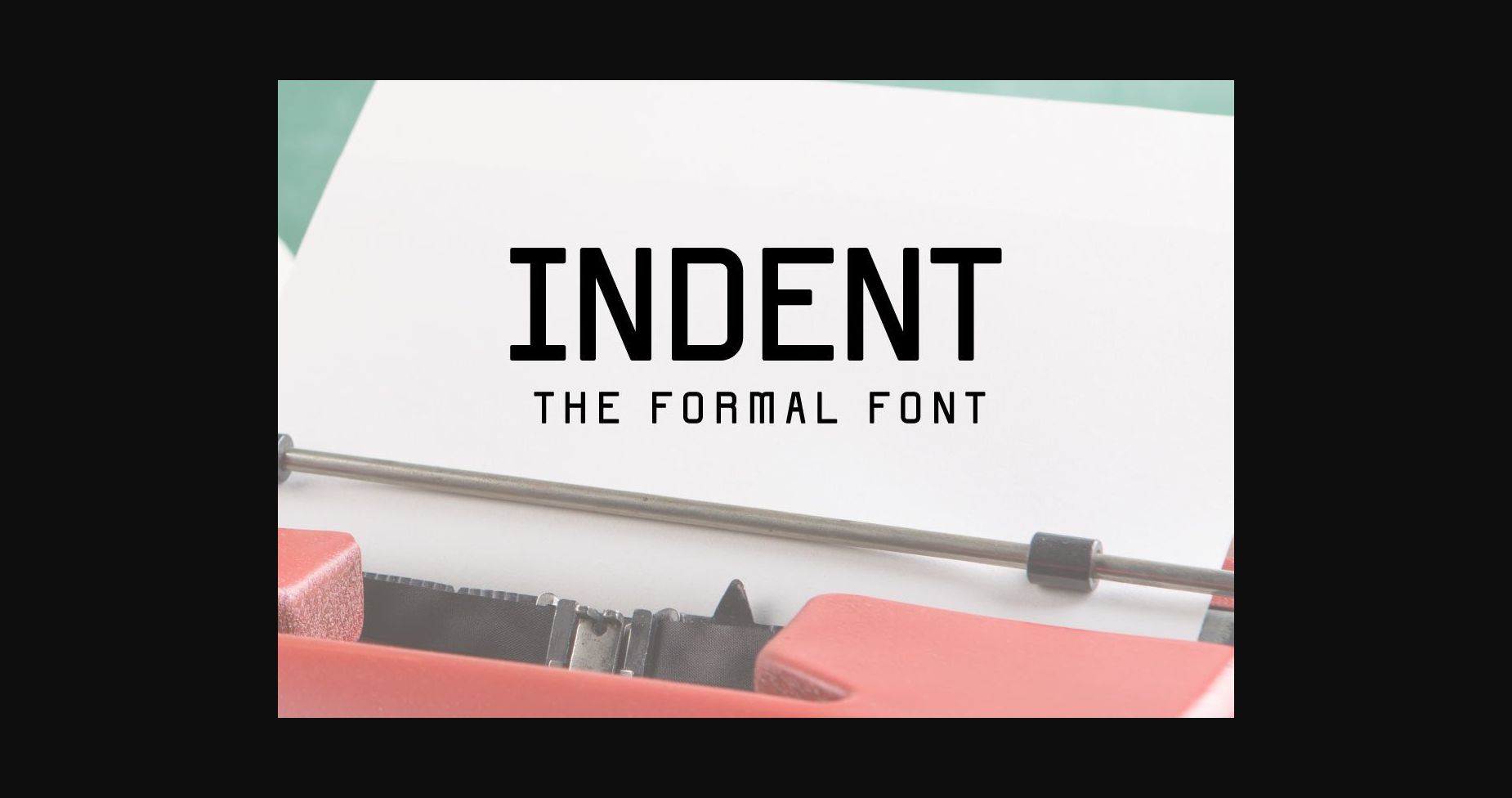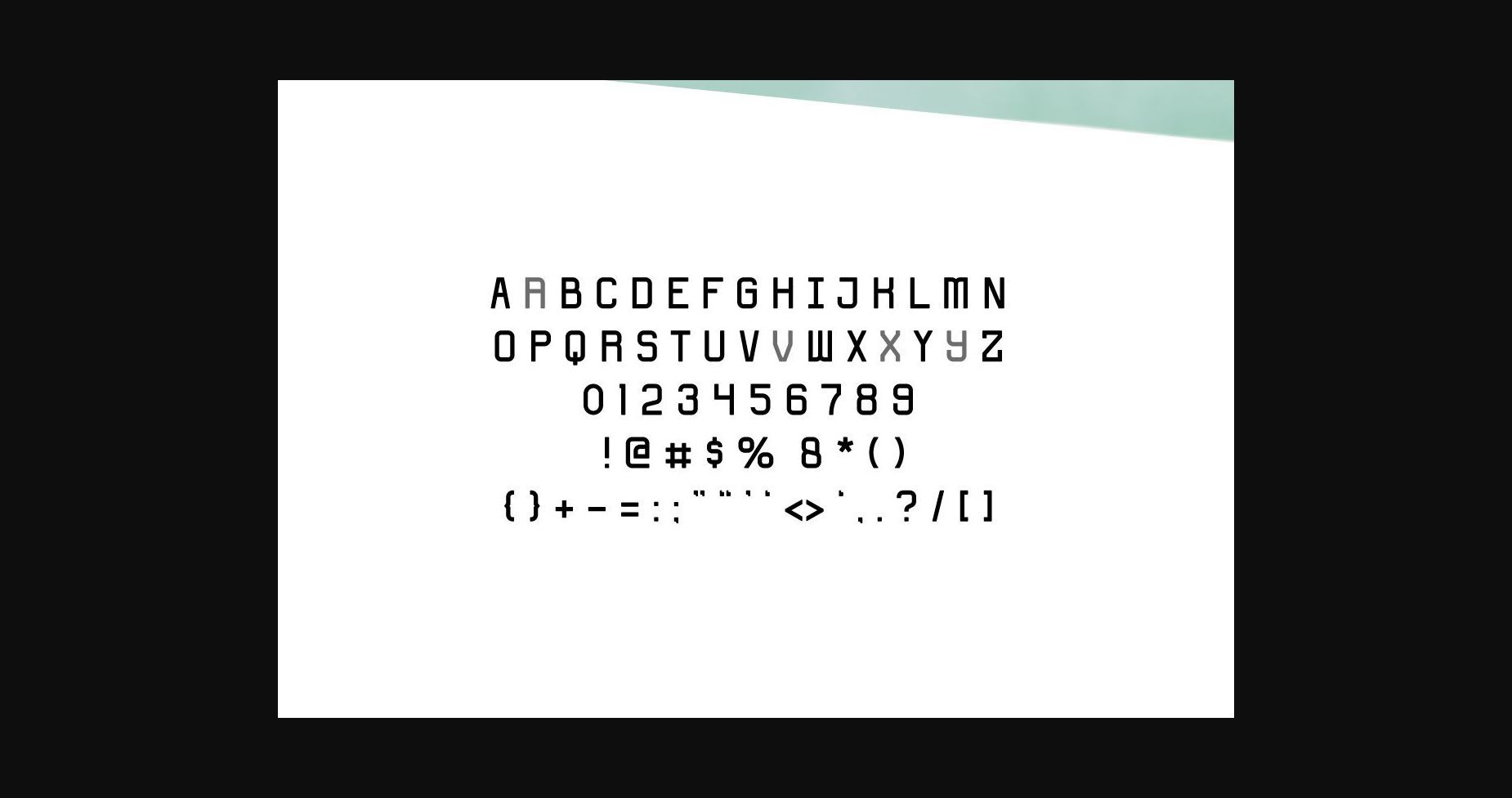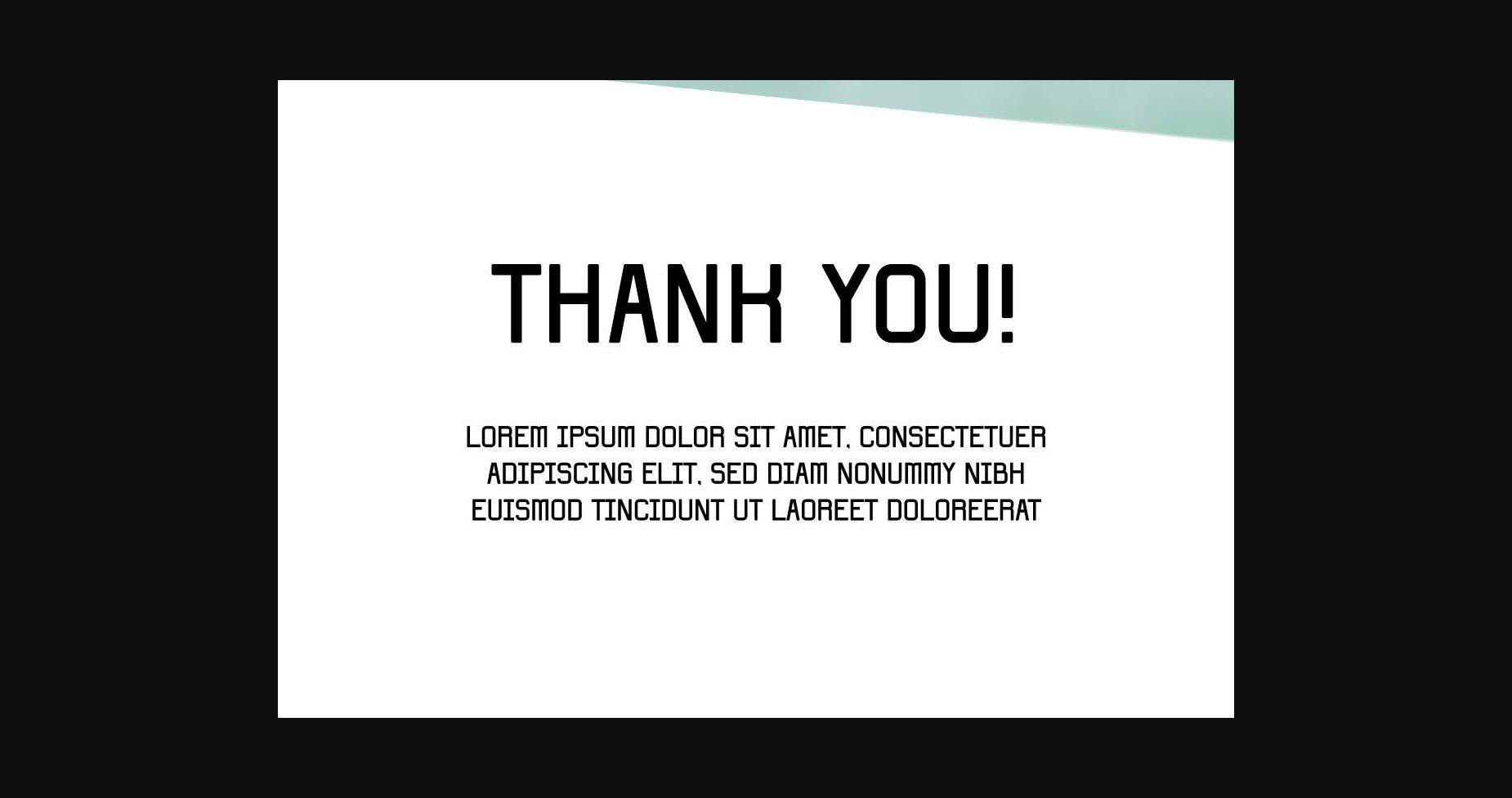
HomeSans Serif FontsIndent Font Sans Serif Fonts Indent Font FacebookXPinterestWhatsApp 1 of 5 ... Indent Font Poster 2... Indent Font Poster 3... Indent Font Poster 4... Indent Font Poster 5... About Indent Font Indent is a simple, clean, and natural sans serif font. Incredibly versatile, this typeface is suitable for a wide range of projects. DOWNLOAD NOW People also explored Miss Starla Font Wake Up Now Font Mag Nerocy Font Sweet Milk Font Friendship Font Sunsetstill Font Old Fashioned Monogram Font Merrytone Font Soulties 538 0 TagsIndentIndent Font Previous articleUbong FontNext articleTondo Font LEAVE A REPLY Cancel reply Comment: Please enter your comment! Name:* Please enter your name here Email:* You have entered an incorrect email address! Please enter your email address here Website: Save my name, email, and website in this browser for the next time I comment. Personal Use Free Kilsonburg Personal Use Free Read more about this font Antaro Personal Use Free Read more about this font Covelia Personal Use Free Read more about this font Bebas Neue Font Personal Use Free Read more about this font BLOG Top 10 Handwritten Fonts That Elevate Your Designs Top 10 Handwritten Fonts That Will Elevate Your Designs Handwritten fonts bring a warm, personal touch to every creative project. Whether you're designing logos, invitations,... Modern Sans-Serif Fonts That Brands Love in 2025 Elegant Wedding Invitation Fonts – Handwritten & Script Fonts Exploring Font Trends